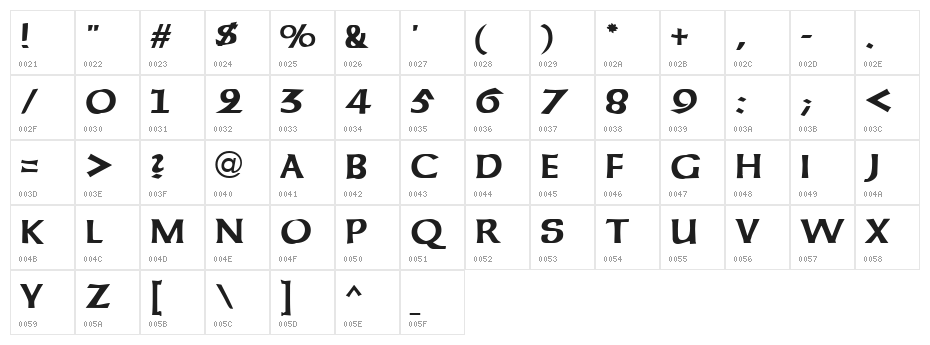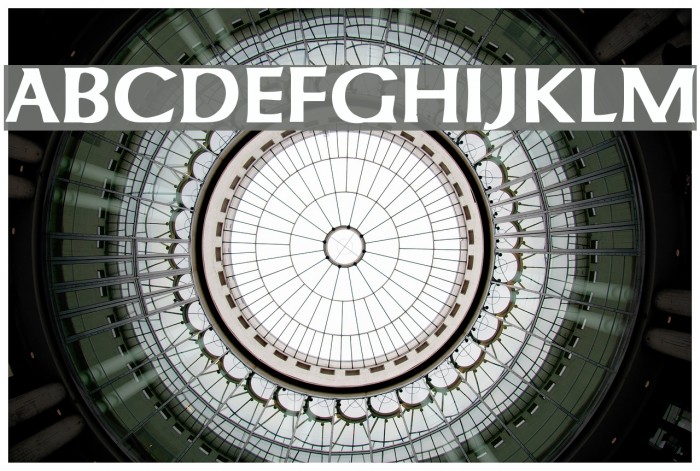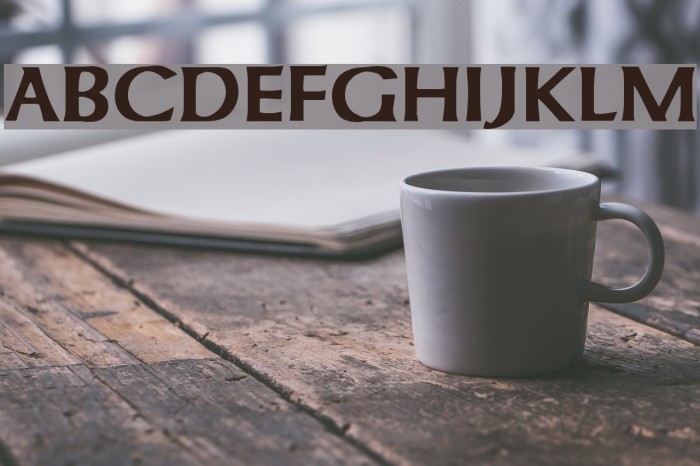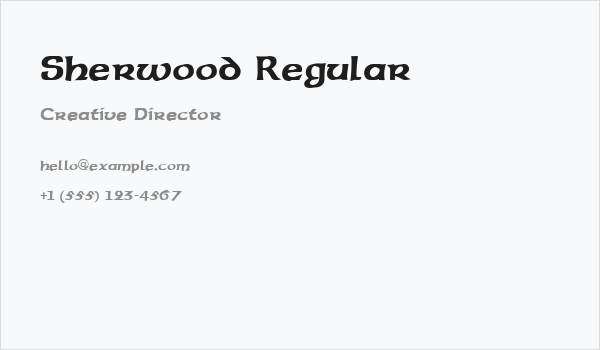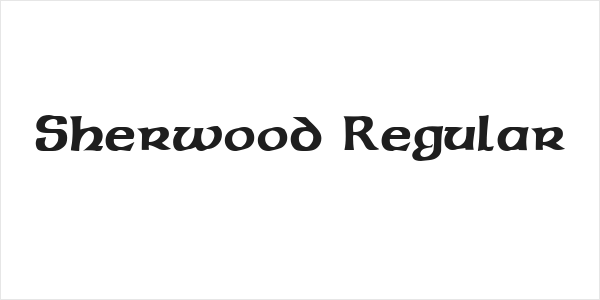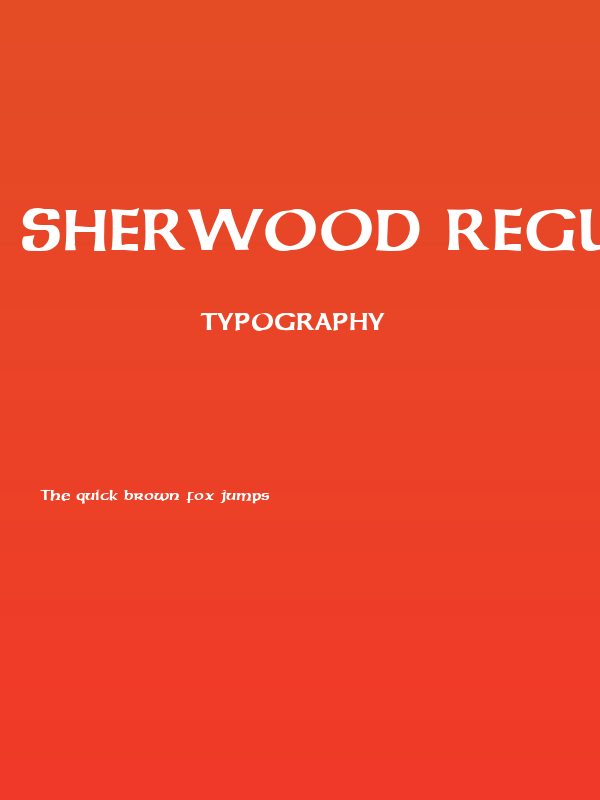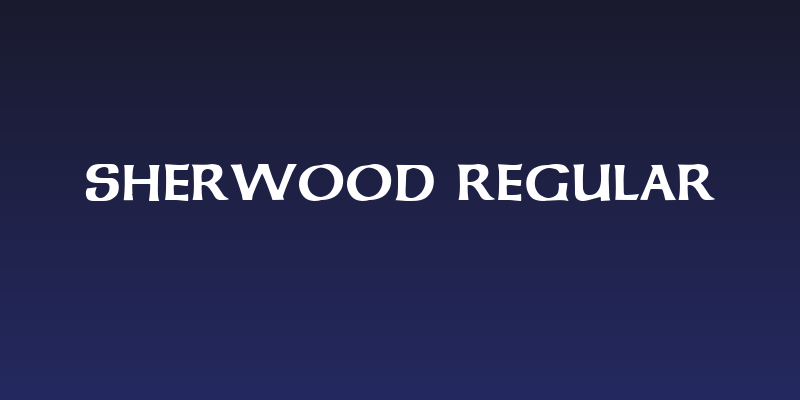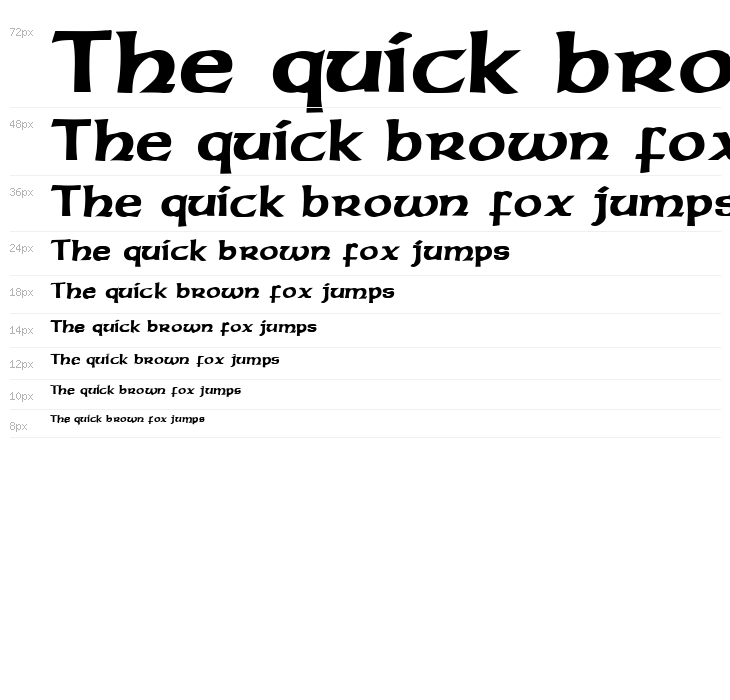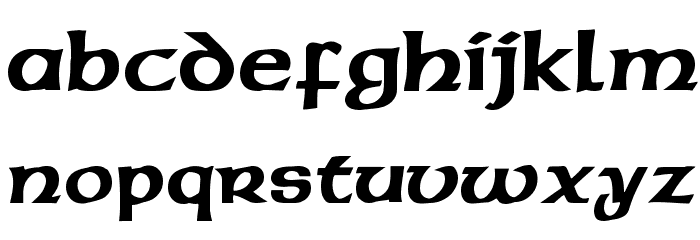
Sherwood Regular Font
Sherwood Regular Description
This font features a distinct, medieval-inspired design with a strong, bold presence. The characters exhibit a unique blend of sharp angles and smooth curves, creating an eye-catching and dramatic appearance. The uppercase letters are particularly striking, with exaggerated serifs and a slightly condensed form, while the lowercase letters maintain a consistent style with a touch of whimsy. The numerals and special characters are crafted to match the overall aesthetic, ensuring a cohesive look across all text. This font is ideal for projects that require a touch of historical or fantasy flair.
| Proposed Projects | Ideal for fantasy book covers, medieval-themed event posters, or video game titles. |